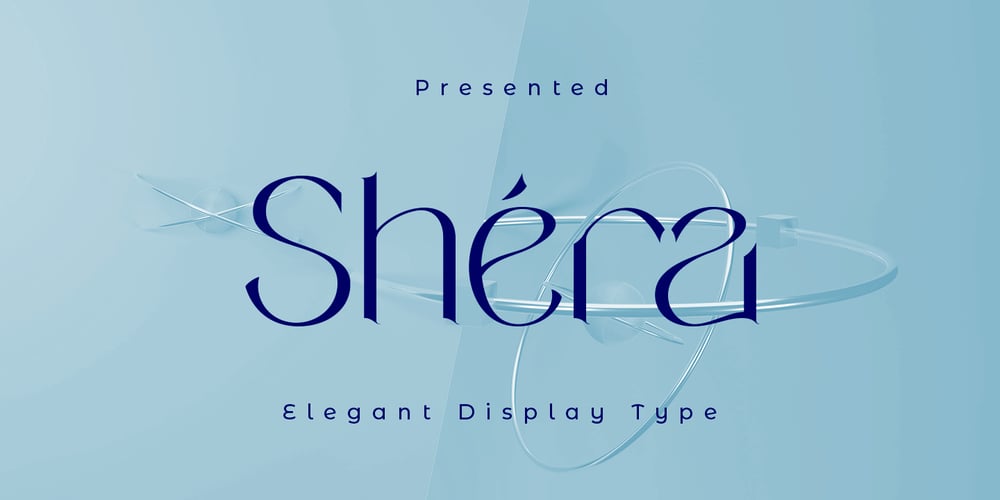
Shera Display Font Family was designed by Cut Nurfajarlia and published by Alandya TypeFoundry. Shera Display contains 2 styles and family package options. Shera display font are elegant and subtle with touch of luxury.Shera Display represents a classy typeface best suitable for magazines, posters, advertising or any kind of fine and sensitive design.The font includes a full set of uppercase and lowercase letters, diacritics, currency signs, numerals,Unique, playful and versatile display font with ligatures and alternates to enrich your design work.